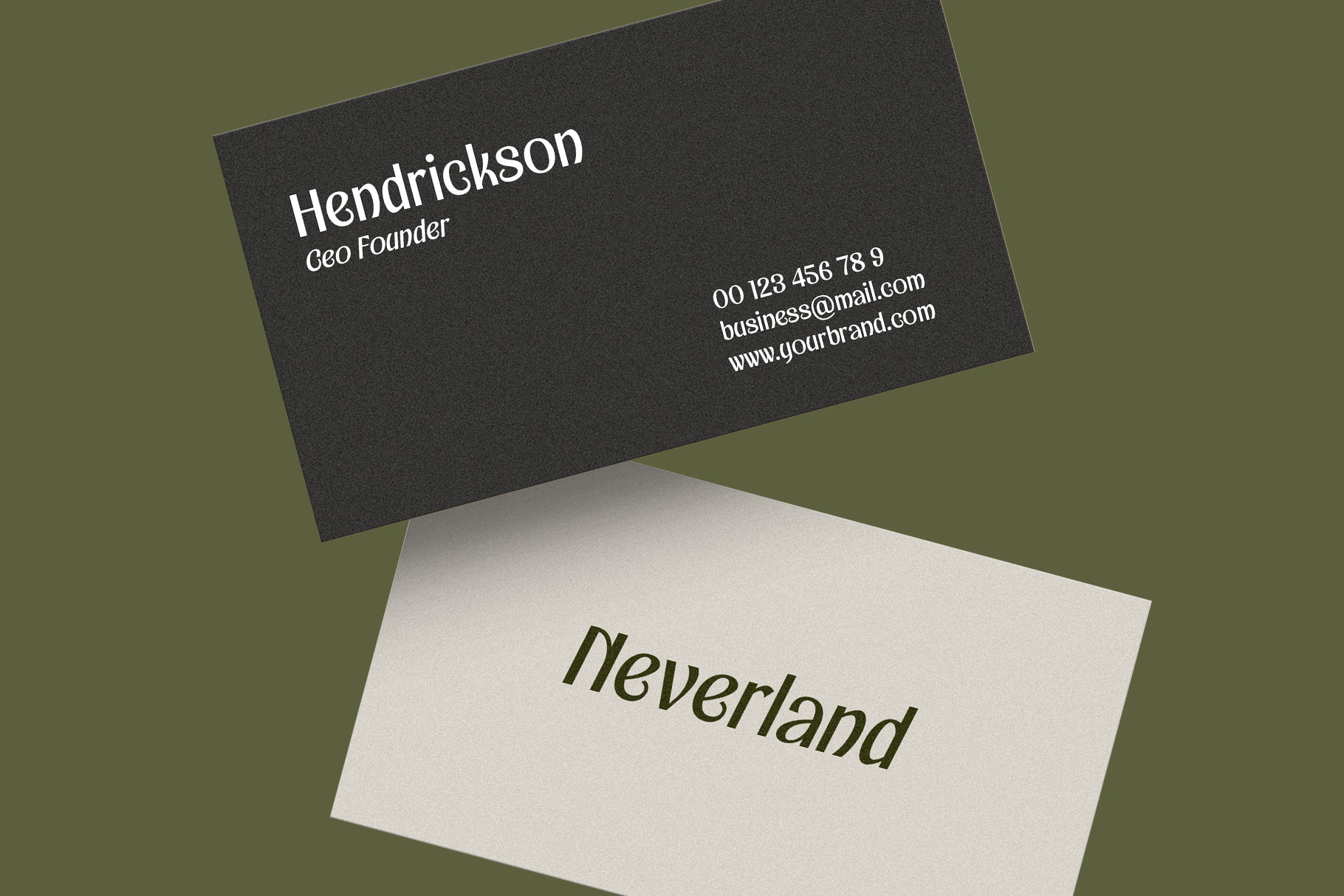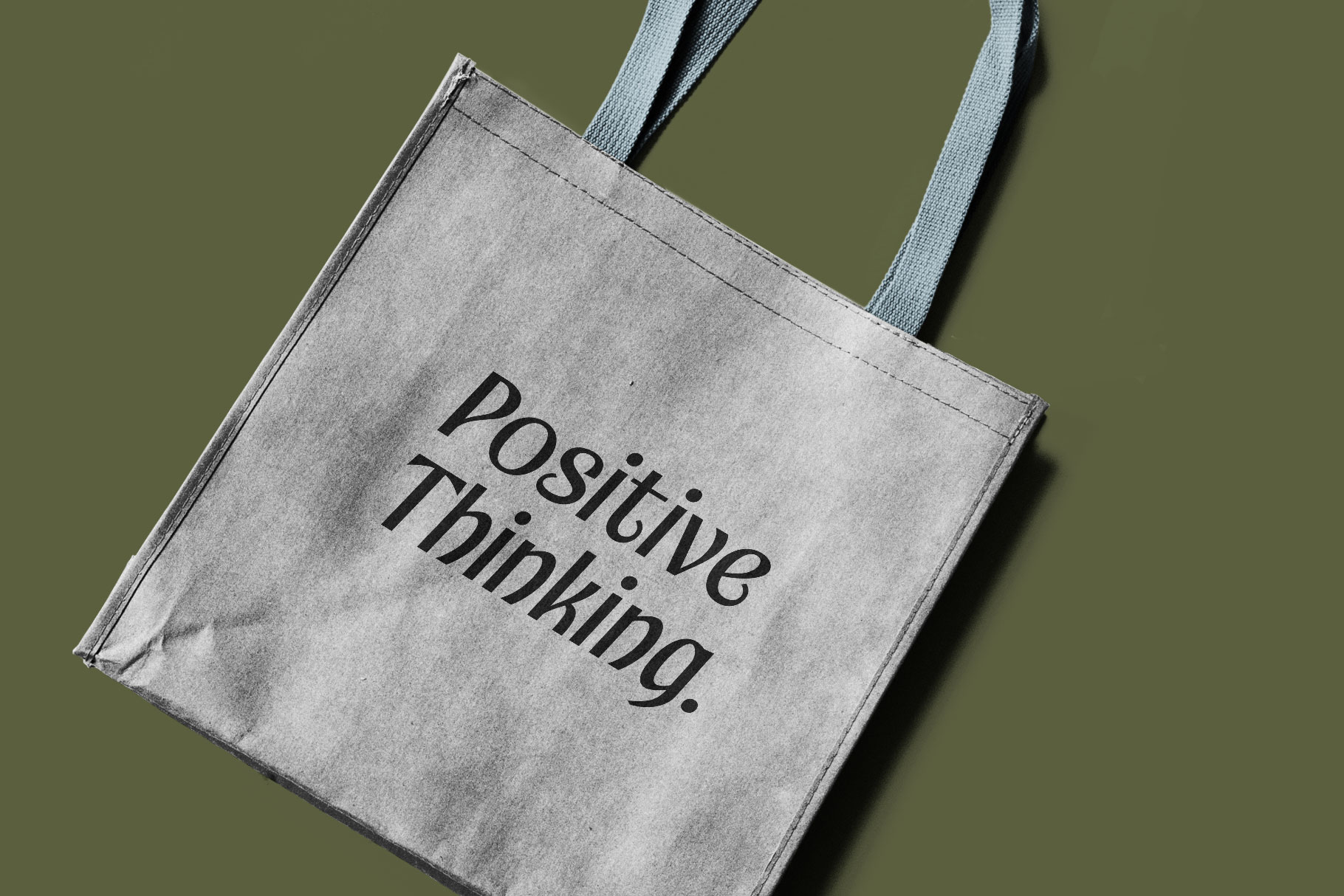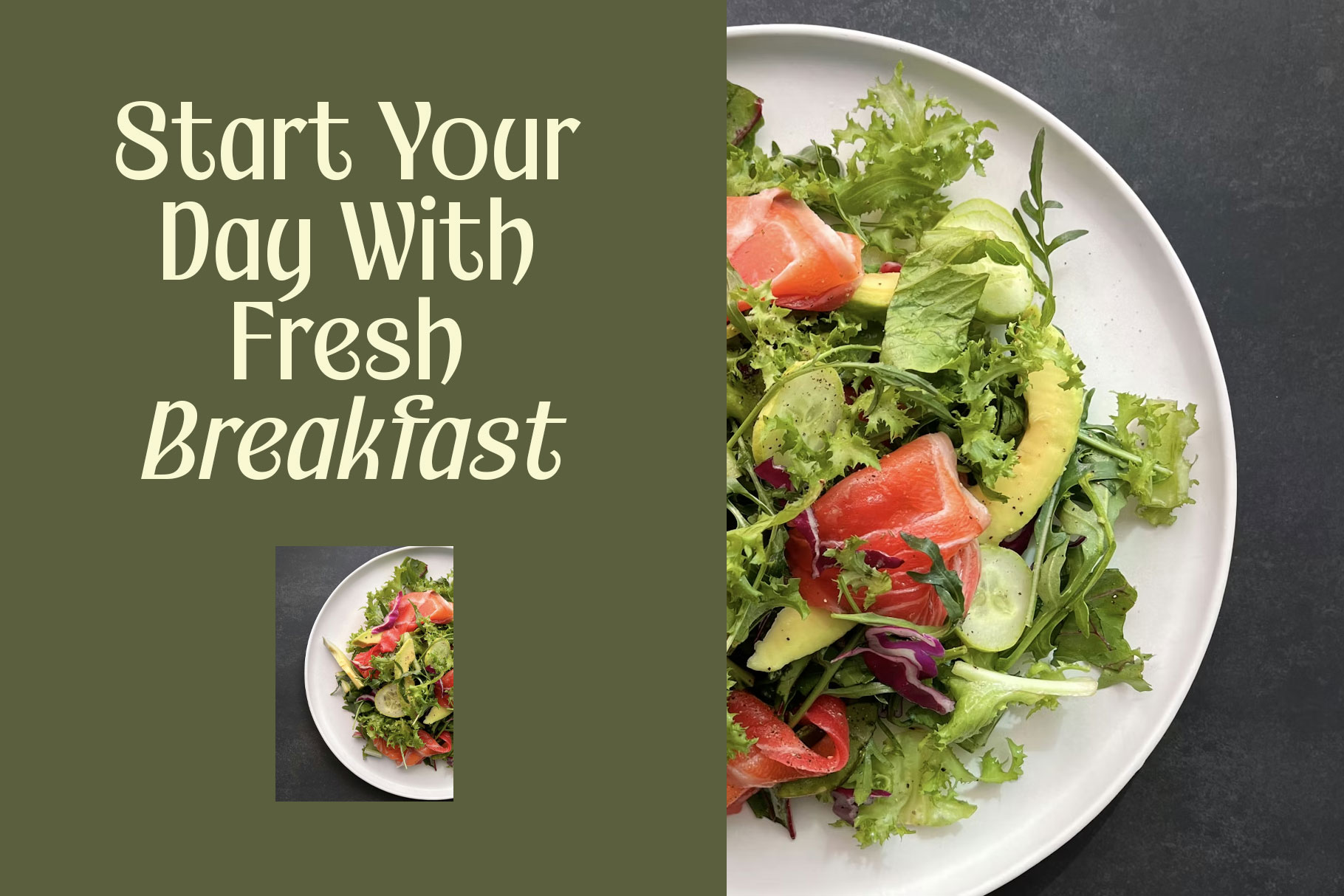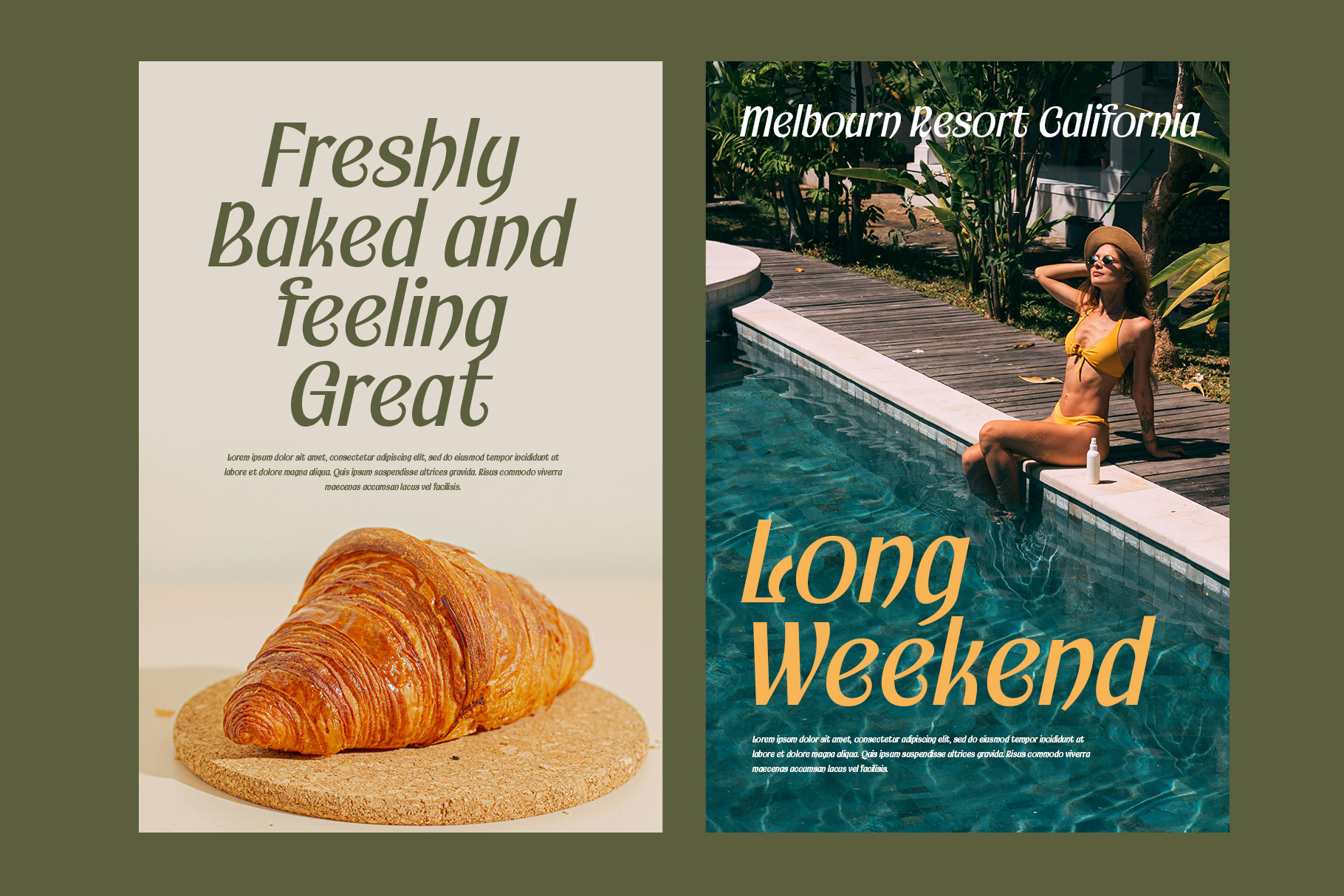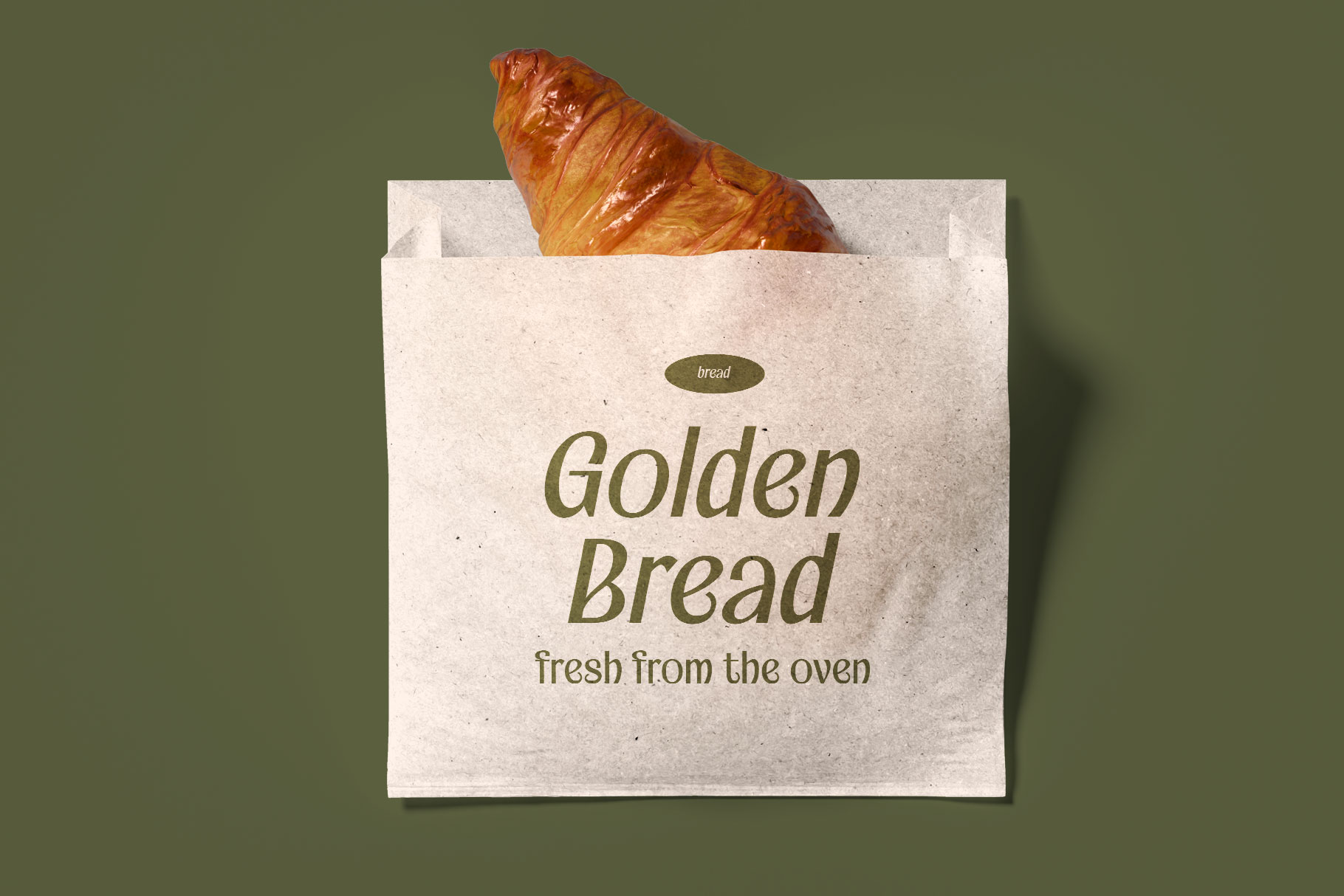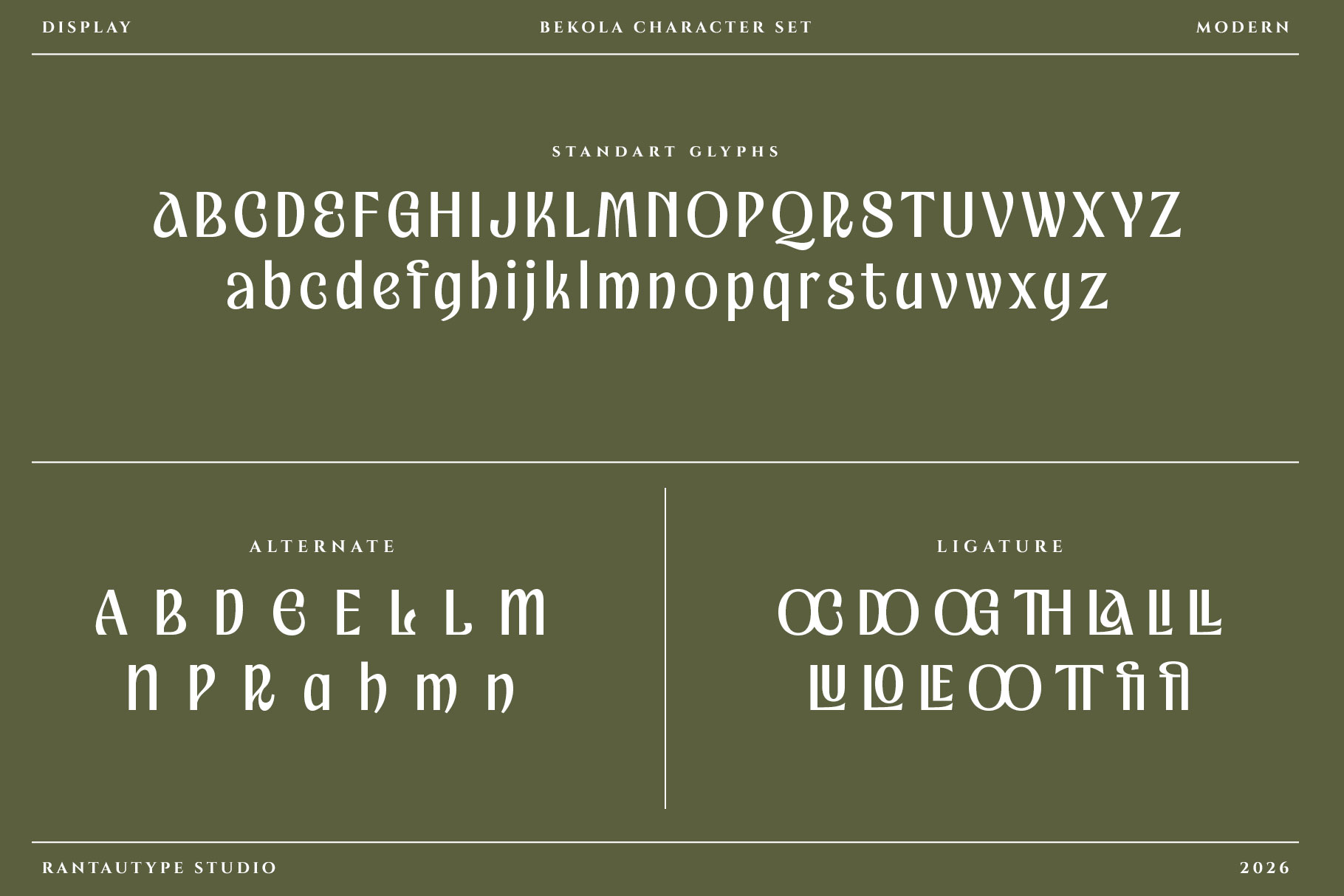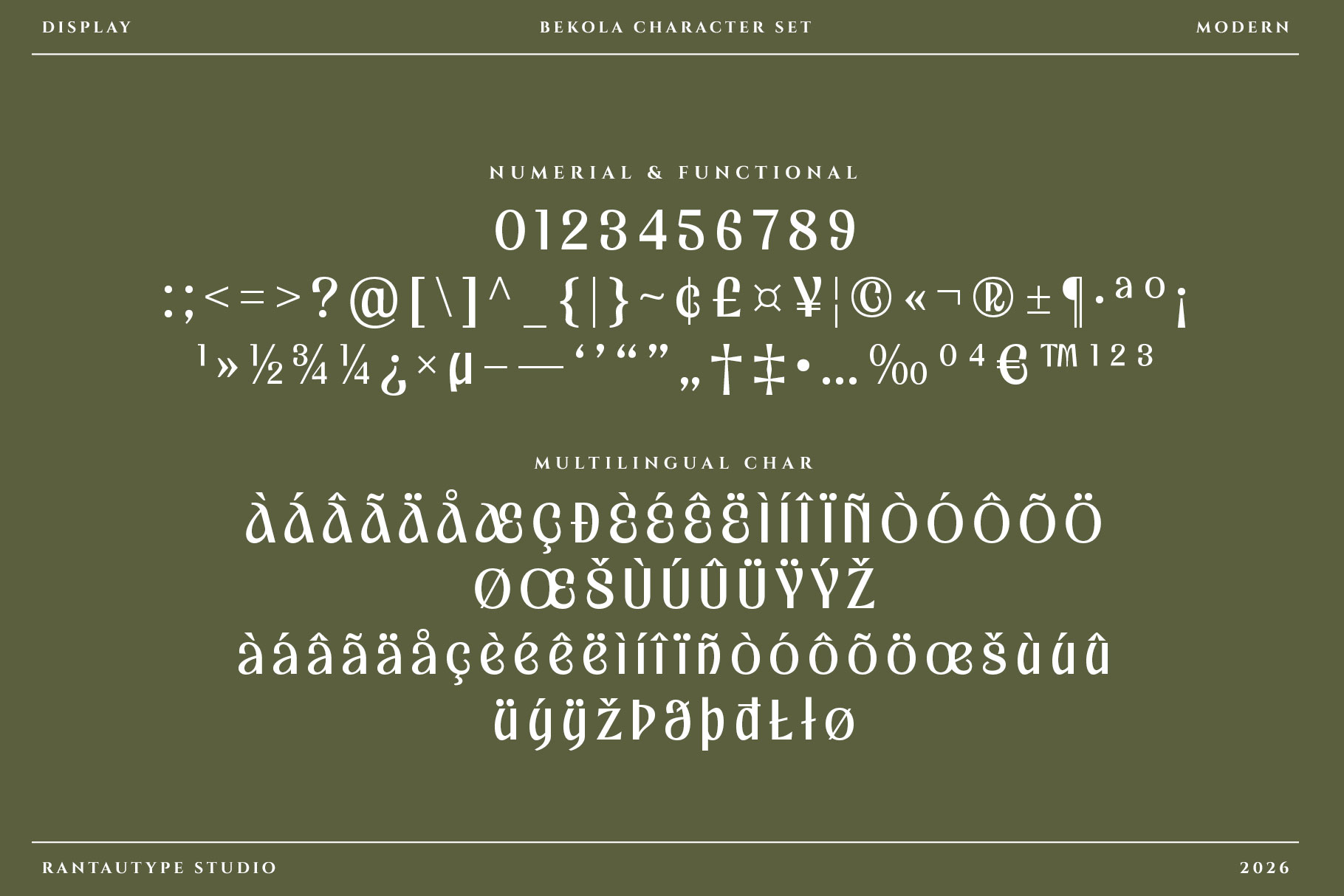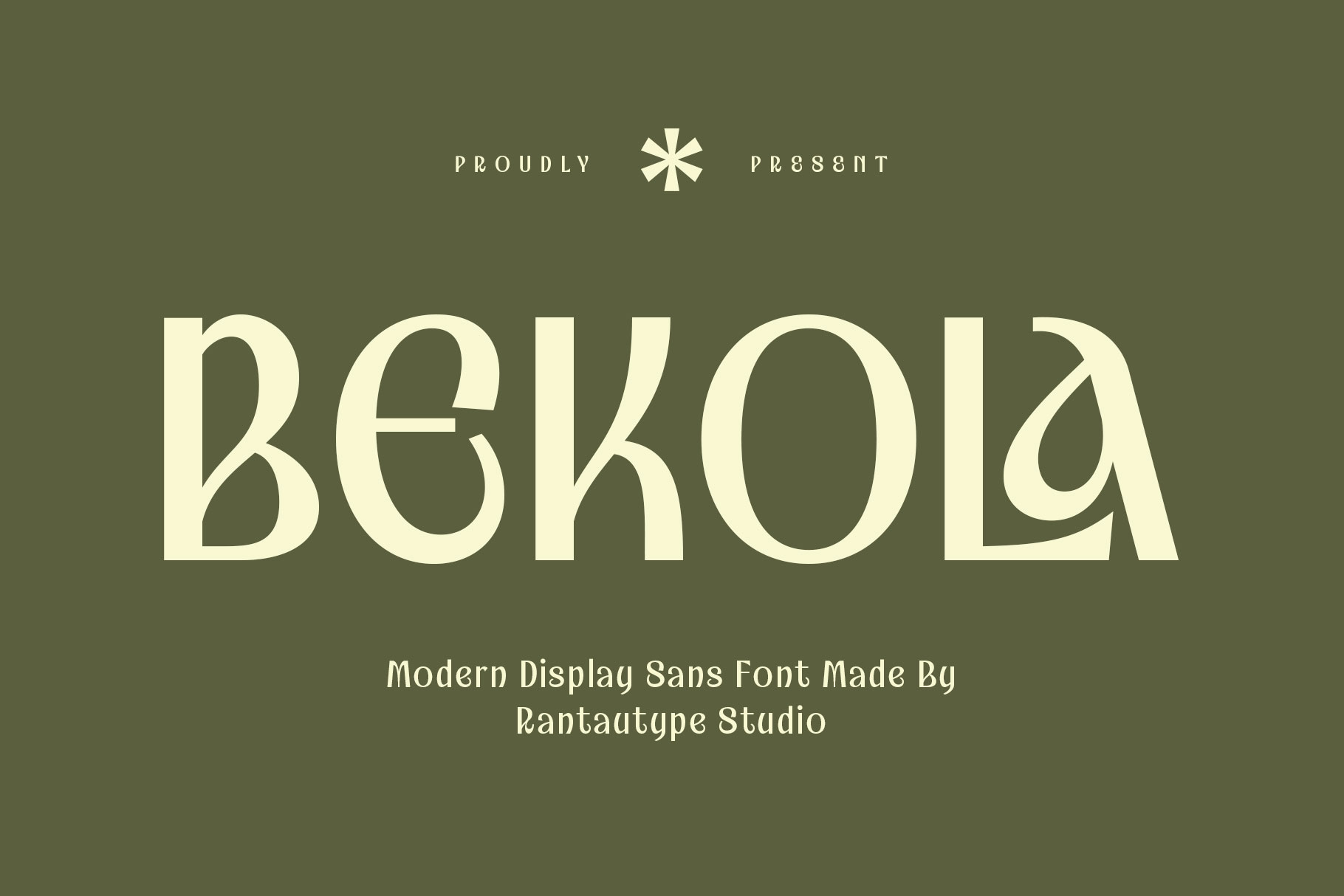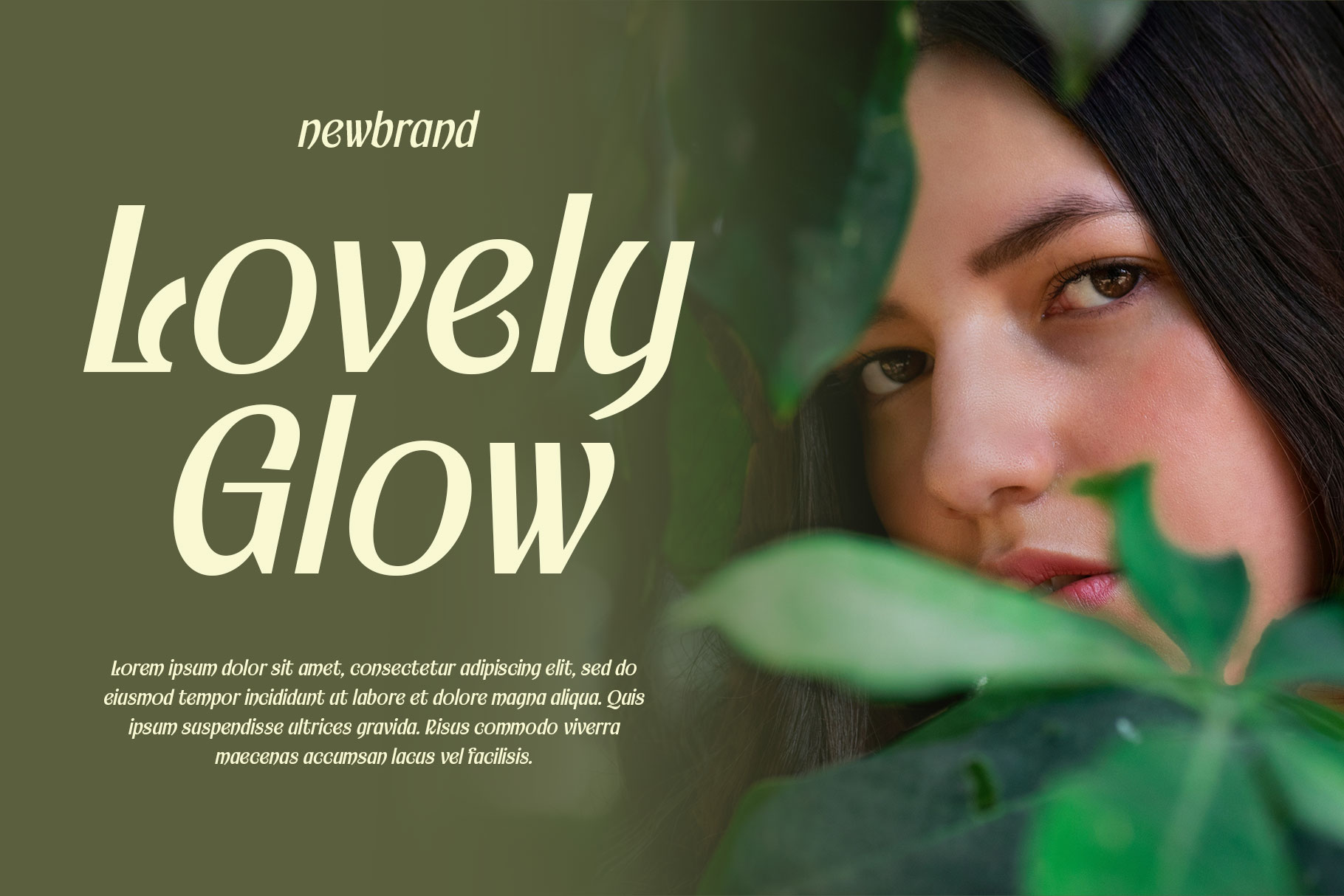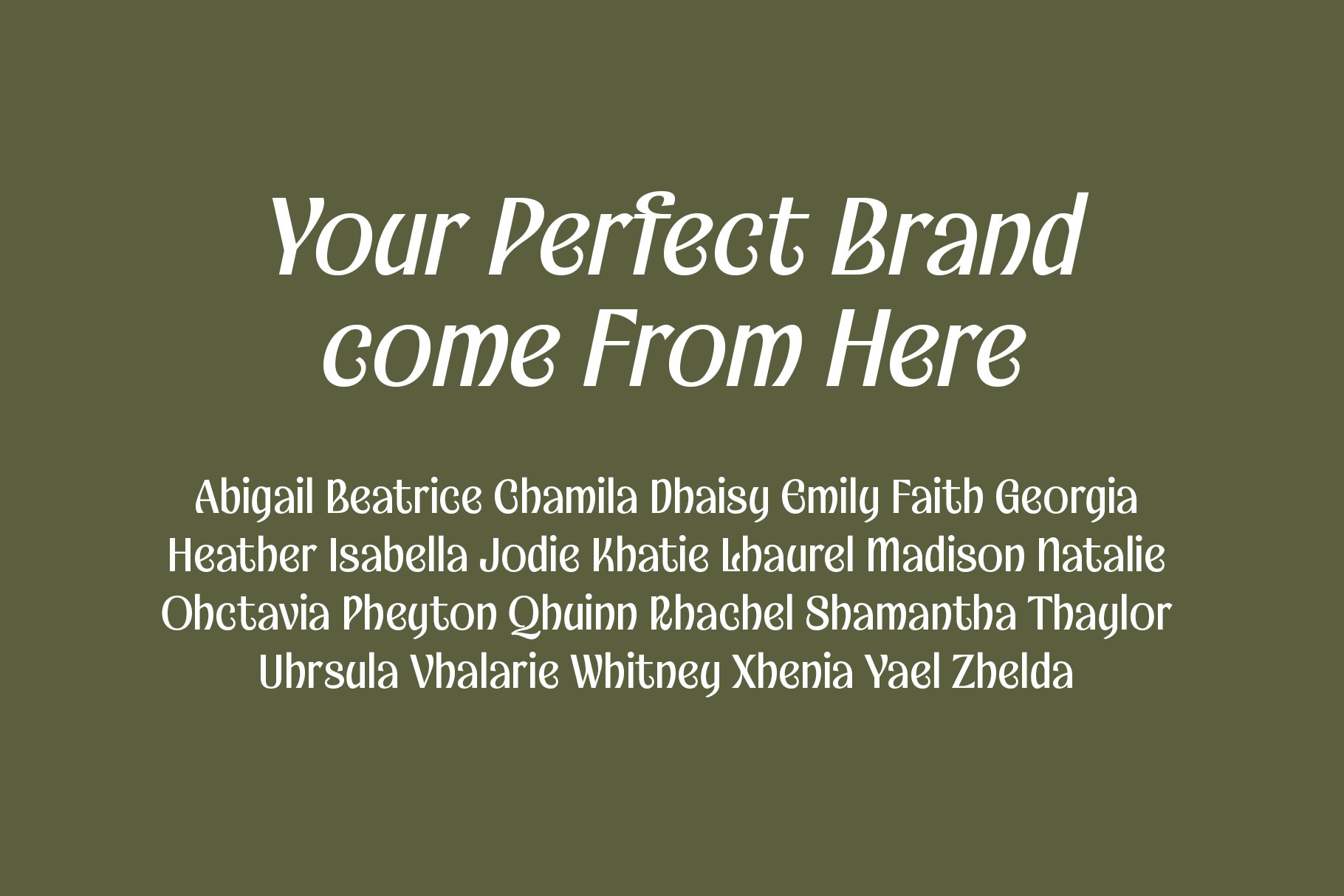
Bekola Modern Display Font
Bekola is modern sans font with unique character. Bekola is a perfectly choice for any creative endeavor, creating, modern, lifestyle design such as logotype, title, cover, branding, invitations, wedding designs, display and magazine, social media posts, advertisements, printed quotes, product packaging, corporate brand, product designs, labels, photography, watermarks, special events and any other project with modern touch.